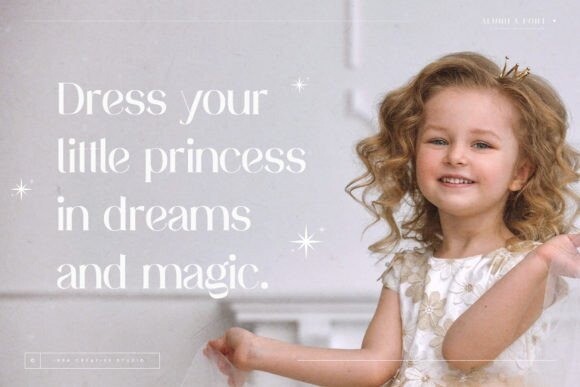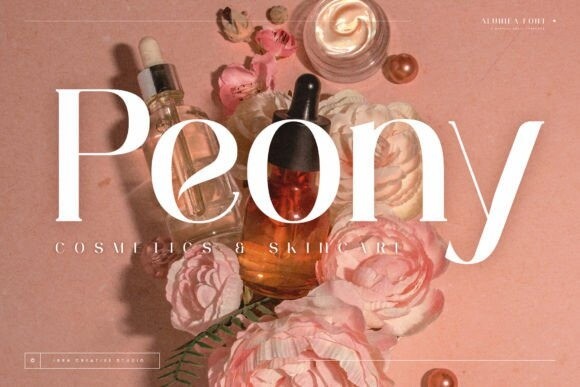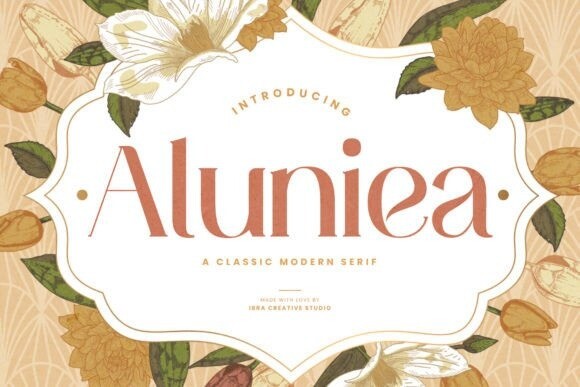
Aluniea Font
Aluniea Font is a classic modern serif typeface that effortlessly marries timeless elegance with contemporary design sensibilities. With its balanced letterforms, graceful strokes, and refined details, Aluniea exudes sophistication and versatility, making it a quintessential choice for a wide range of design applications.